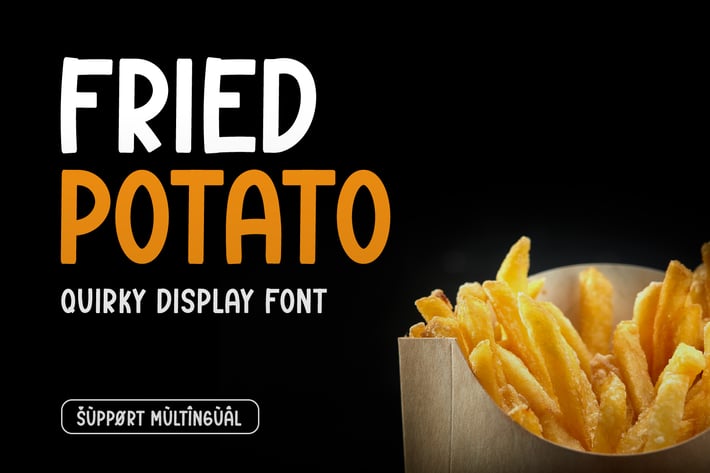
Fried Potato - Quirky Display Font
Introducing Fried Potato - Quirky Display Font
Fried Potato is a simple, neat, adaptable yet a bit quirky display font. It embodies playfulness and authenticity and it is the perfect choice for any children activity or school project.